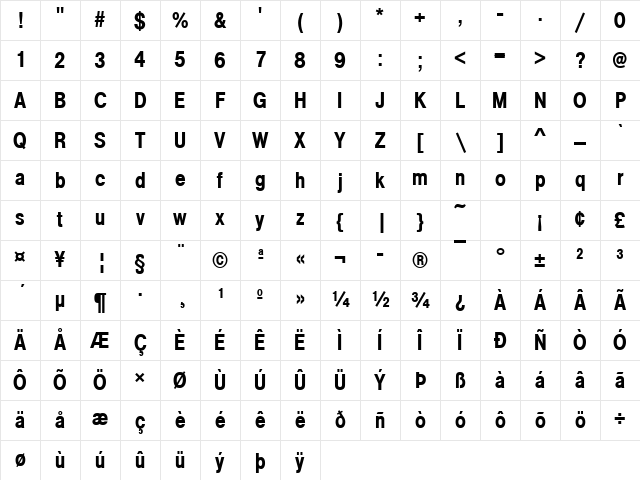
Nimbus Sans Becker No4DMedCon Regular
Complete Nimbus Sans Becker No4DMedCon Regular glyph index. Displaying only characters natively supported by Nimbus Sans Becker No4DMedCon Regular font.
Design Context for Nimbus Sans Becker No4DMedCon
Nimbus Sans Becker No4DMedCon is a composed and adaptable typeface that performs quietly and consistently across a wide range of design contexts.
Pro Tip: Use Nimbus Sans Becker No4DMedCon in both headline and body roles to test its range before committing to a single application.